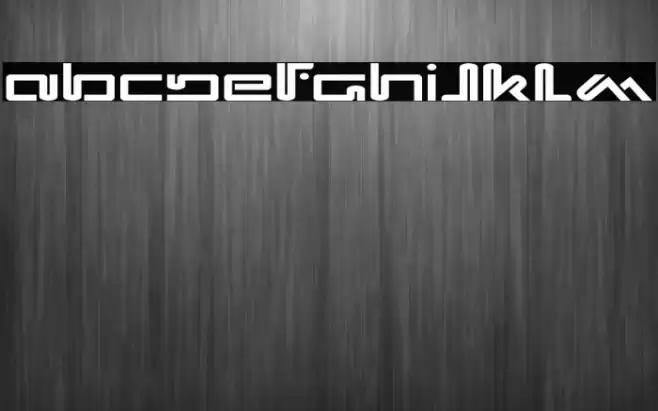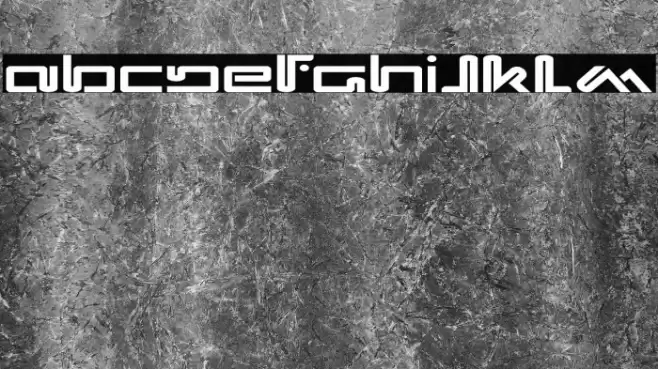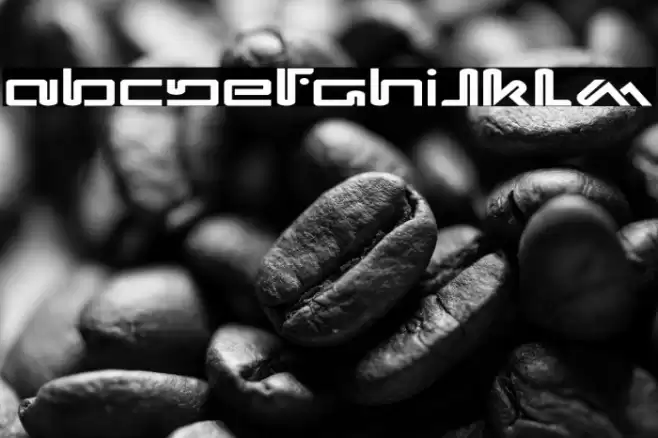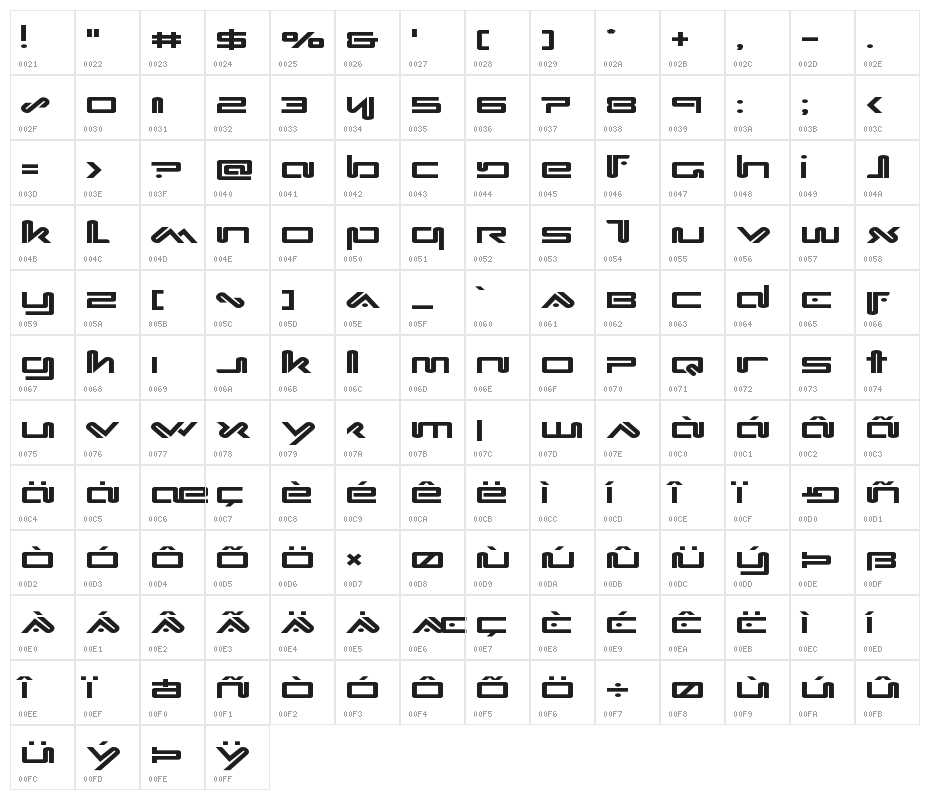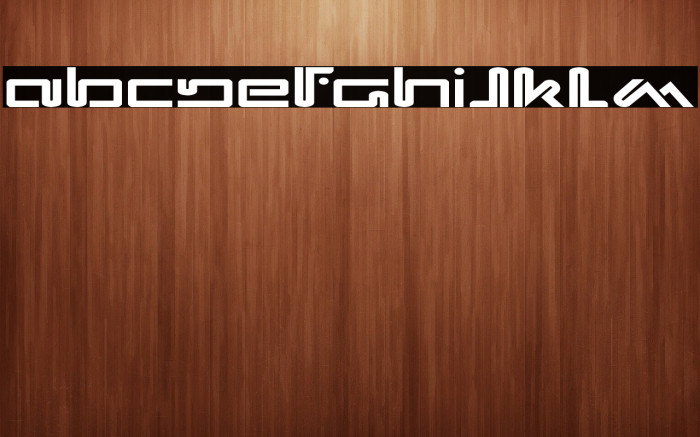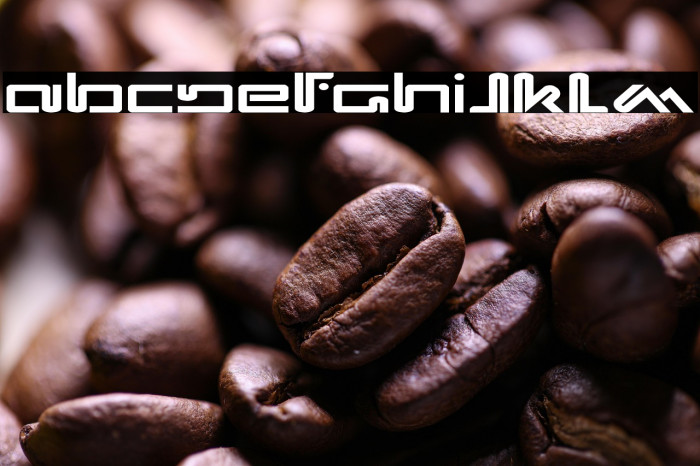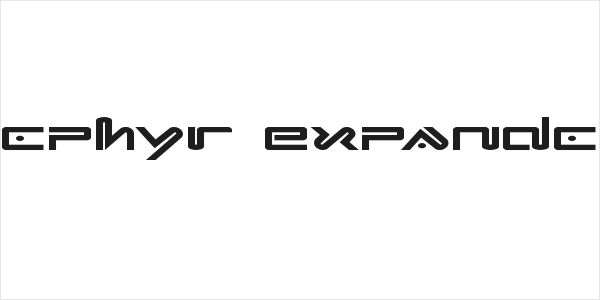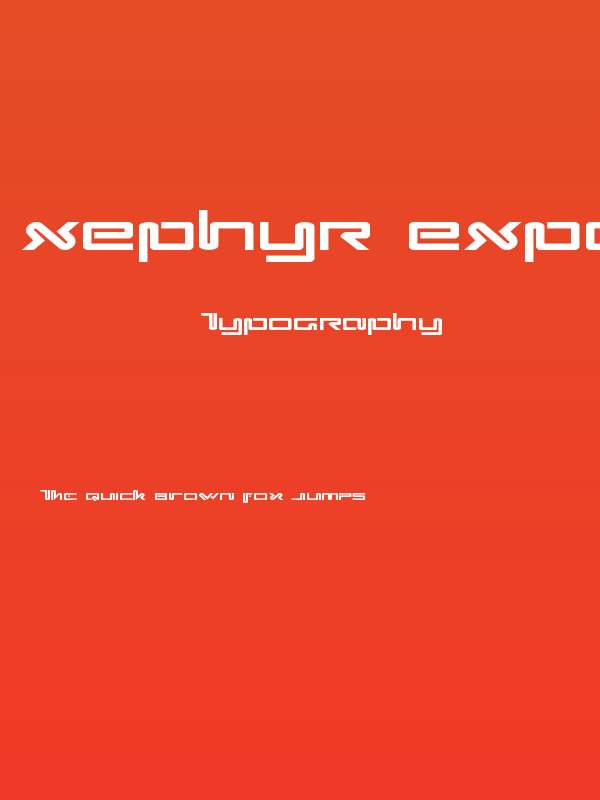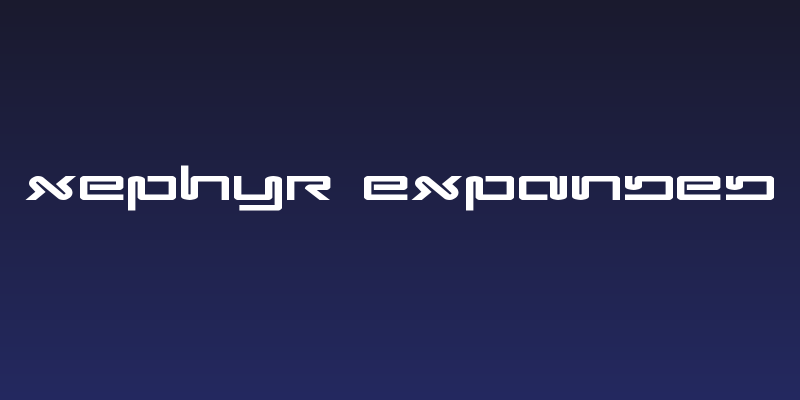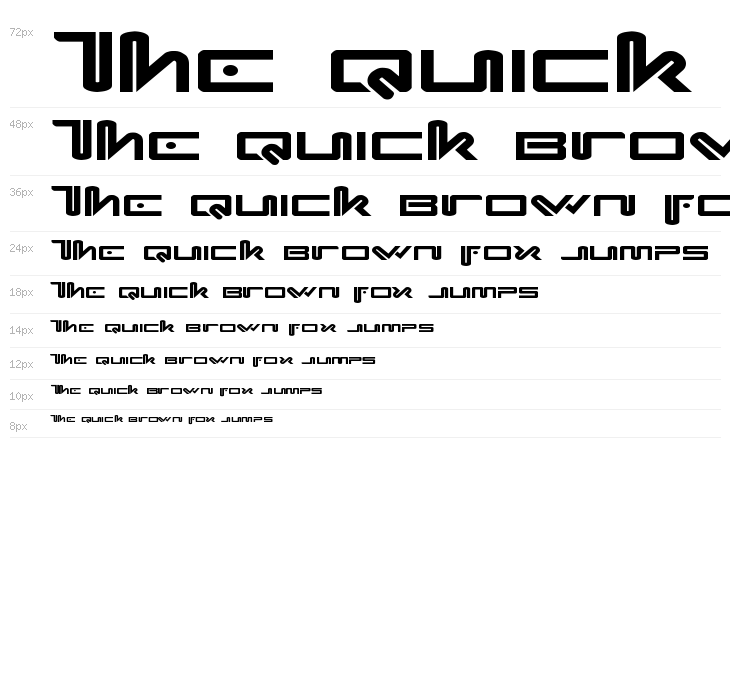
Xephyr Expanded Font
Xephyr Expanded Description
This font features a futuristic and geometric design, characterized by its bold and angular letterforms. Each character is crafted with sharp edges and a unique, stylized appearance that gives it a distinct, modern look. The uppercase and lowercase letters maintain a consistent design language, with some characters incorporating unexpected angles and cuts that add to the font's dynamic feel. The numerals and special characters follow the same design principles, ensuring a cohesive and visually striking typeface. This font is ideal for projects that require a contemporary and edgy aesthetic.
A futuristic, geometric font with bold, angular letterforms from Uncategorized fonts.
- Font: Xephyr Expanded
- Proposed Projects: Ideal for sci-fi themed designs, technology branding, video game titles, and modern posters.
- Width: Expanded